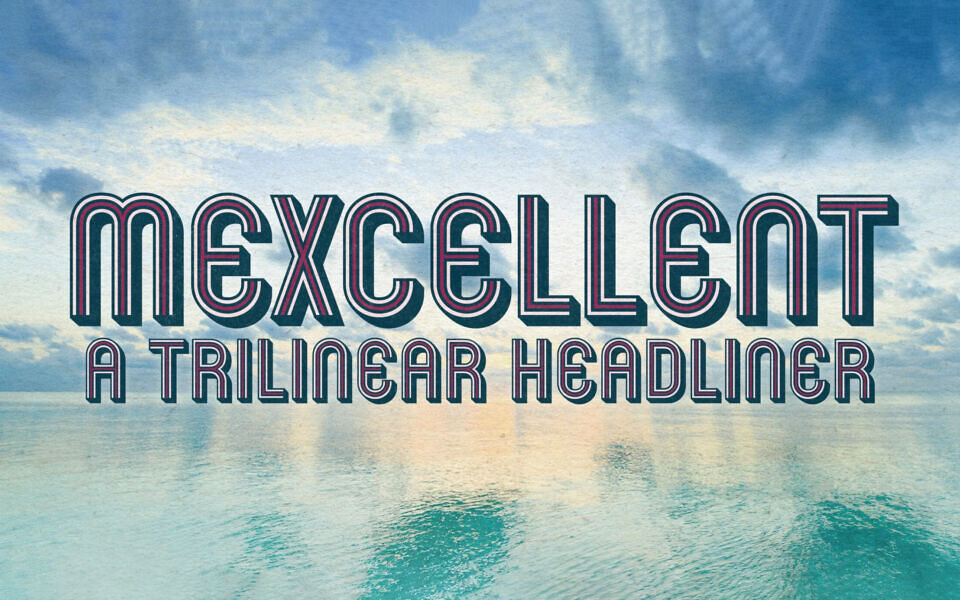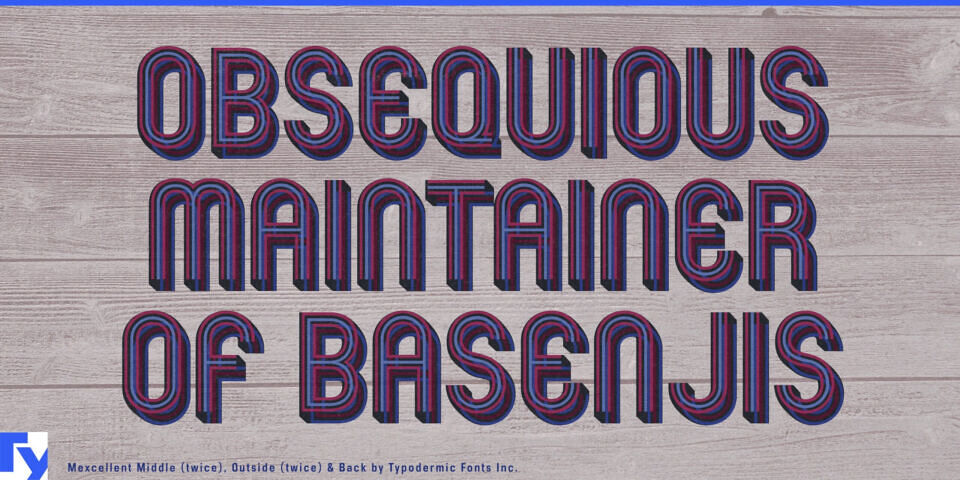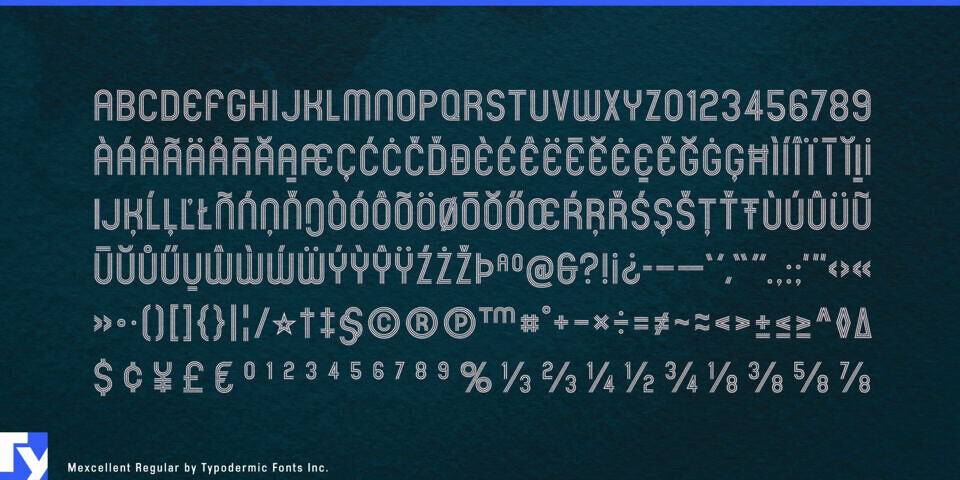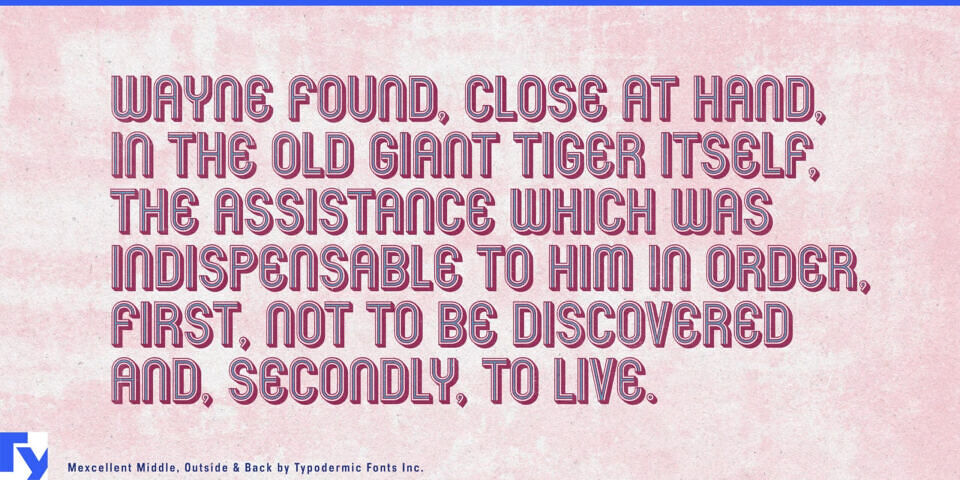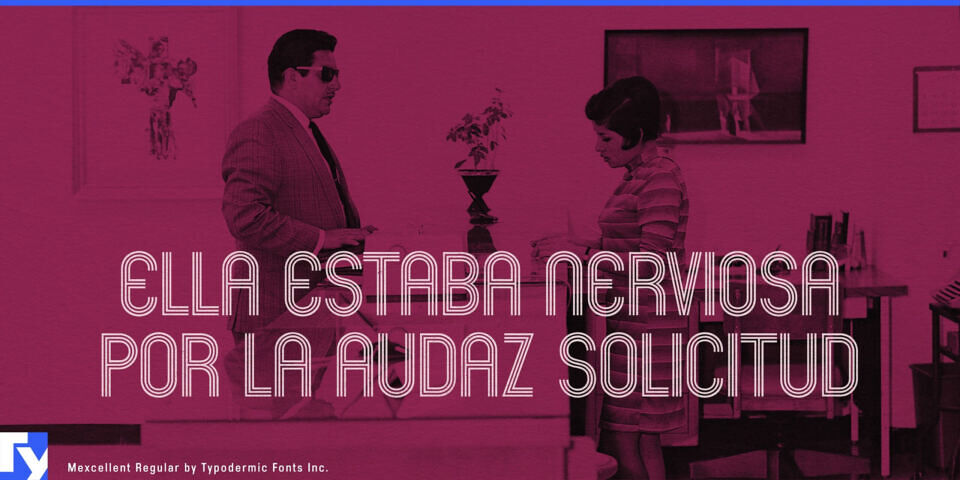
Mexcellent Font
Mexcellent captures the vibrant geometry of Mexico City’s 1968 design era in a bold, stripe-layered headline font built for modern versatility. Its multi-layer system…Regular, 3D, Back, Middle, and Outside; lets designers stack, recolor, and mix layers for anything from subtle dimensional effects to vivid, multi-tone compositions.
Tall, condensed forms give it strength in tight spaces, perfect for posters, banners, and retro-inspired branding. With wide Latin support, Mexcellent brings its rhythmic stripes and energetic spirit to projects across languages and cultures, turning layered typography into a celebration of motion and design history.